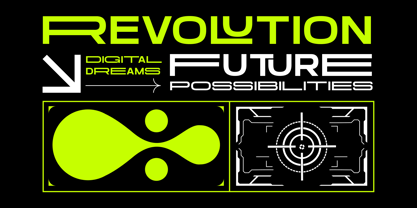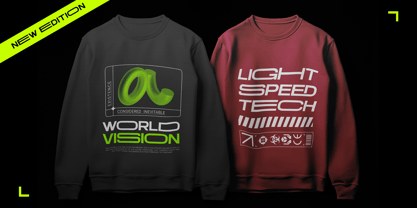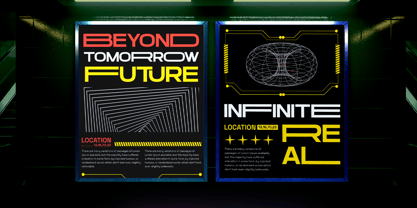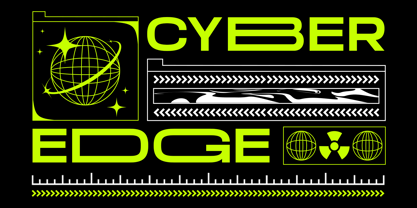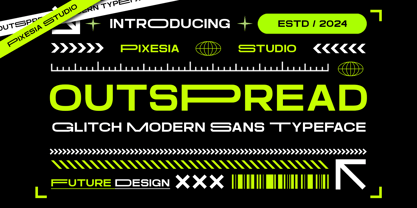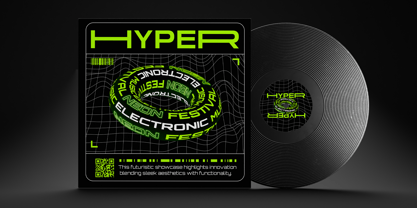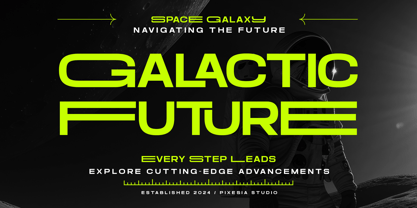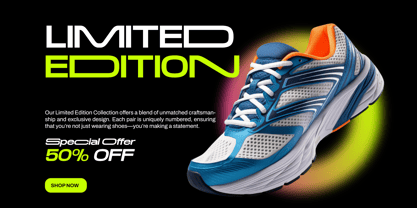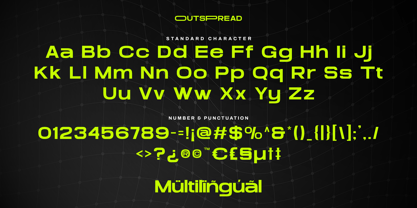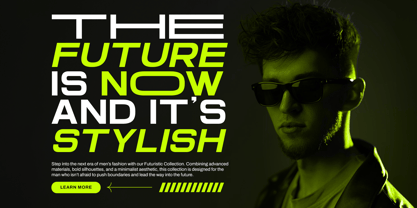
Outspread
by Pixesia Studio
Introducing Outspread - Futuristic Sans Serif Font
Outspread is a unique display font with wide letterforms that give it a modern look. This stylish sans serif typeface is easy to read and works great for both formal and casual designs.
Outspread is perfectly suited for branding, posters, social media, invitations, product packaging, business cards, logos, flyers, website headers, merchandise, presentations, headlines, labels, advertisements, product designs, photography, watermark, and any design projects seeking a modern and eye-catching touch.
FEATURES
- Stylistic Alternates
- Ligatures
- Uppercase and Lowercase letters
- Numbering and Punctuations
- Multilingual Support including Afrikaans, Albanian, Basque, Catalan, Danish, Dutch, English, Estonian, Faroese, Filipino, Finnish, French, Galician, German, Icelandic, Indonesian, Irish, Italian, Malay, Norwegian Bokmål, Portuguese, Spanish, Swahili, Swedish, Zulu